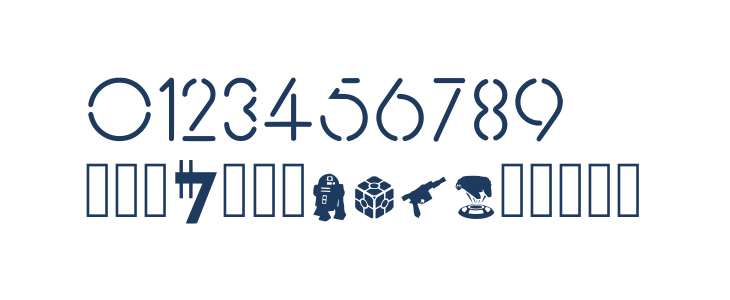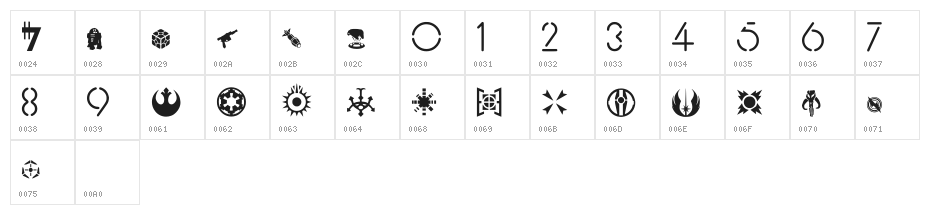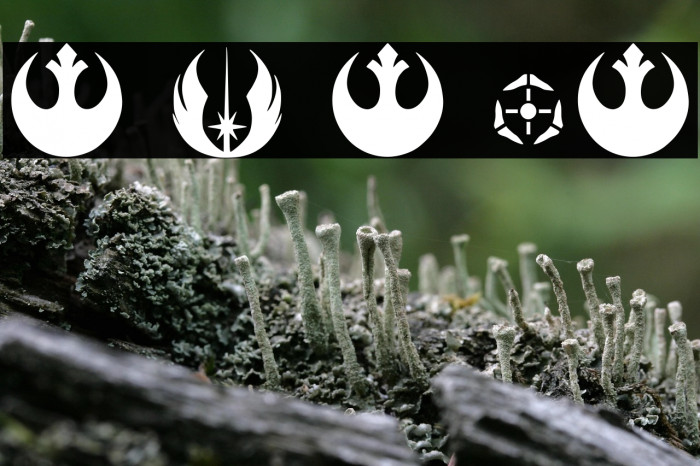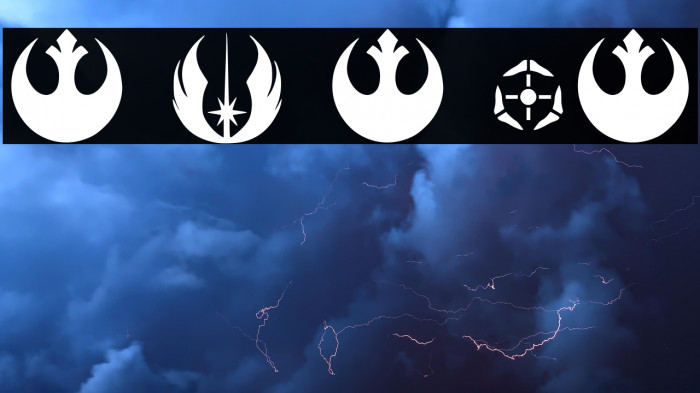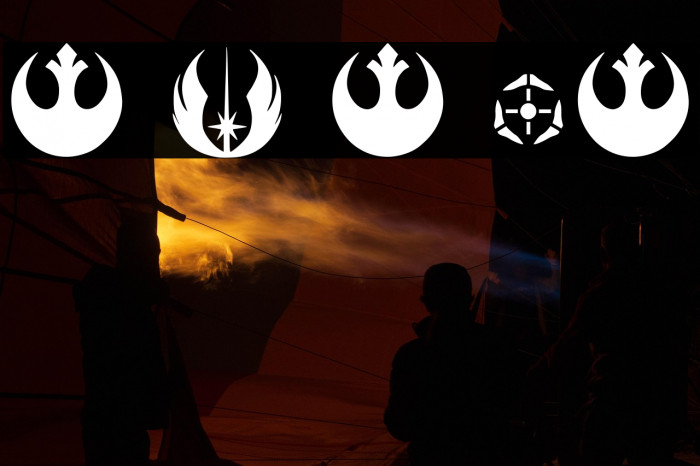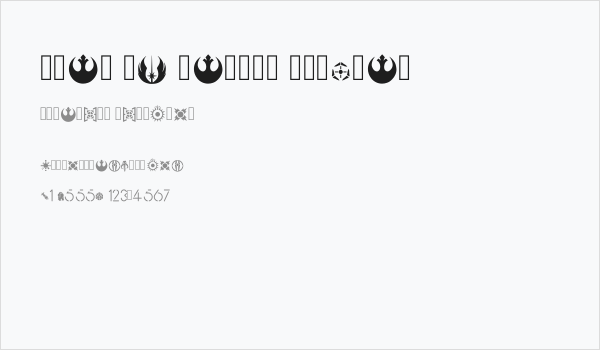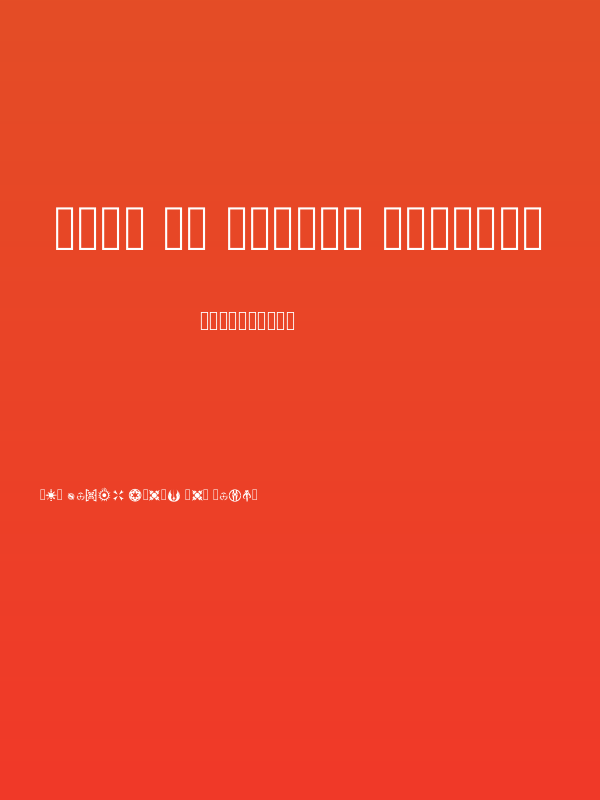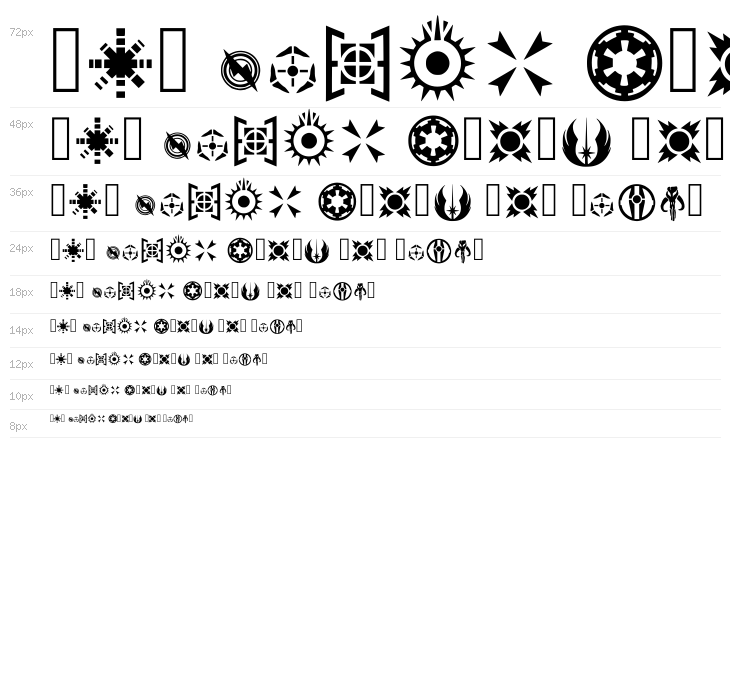
Stay On Target Regular Font
Stay On Target Regular Description
This font is a decorative and thematic typeface inspired by iconic sci-fi elements. It features a series of symbols and shapes that are reminiscent of a popular space saga, including emblems and motifs that evoke a sense of adventure and futuristic design. The numerals are stylized with a sleek, modern look, incorporating circular and angular elements that suggest advanced technology. This typeface is not suitable for traditional text but serves as a creative tool for thematic projects.
| Overall Style | Futuristic, Thematic |
| Use Case | Logos, Posters, Thematic Designs |
| Proposed Projects | Ideal for themed event posters, fan art, sci-fi games, and creative design projects that require a futuristic or space-themed aesthetic. |